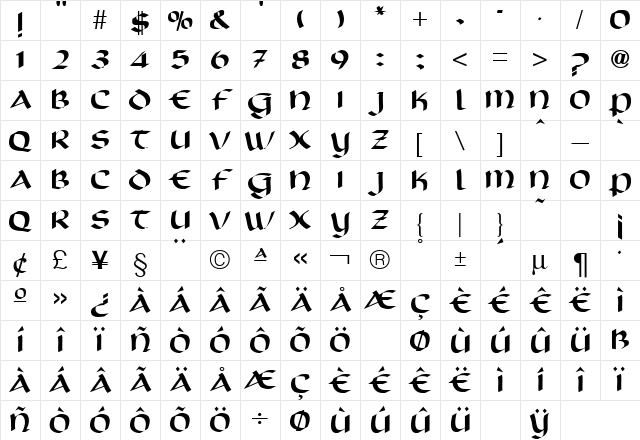
Scotford Uncial Regular
Design Context for Scotford Uncial
Scotford Uncial is a composed and adaptable typeface that performs quietly and consistently across a wide range of design contexts.
Pro Tip: Use Scotford Uncial in both headline and body roles to test its range before committing to a single application.